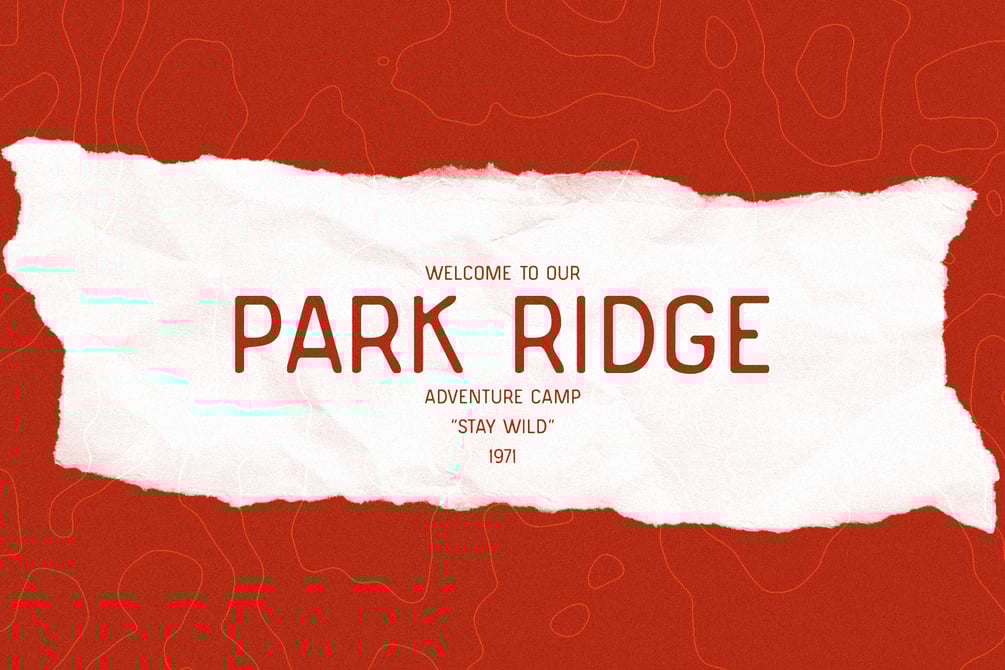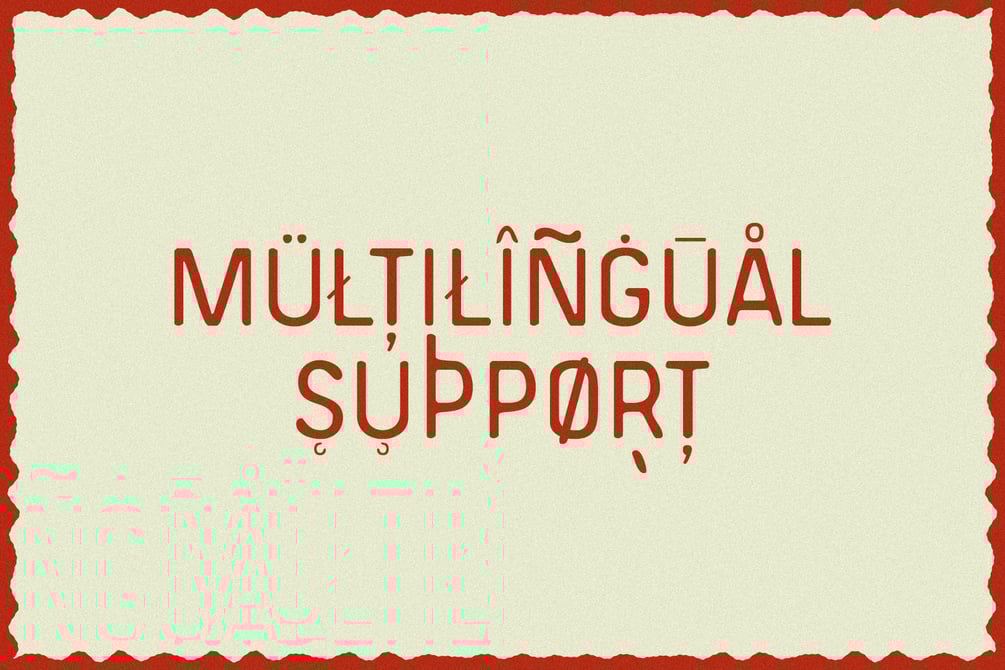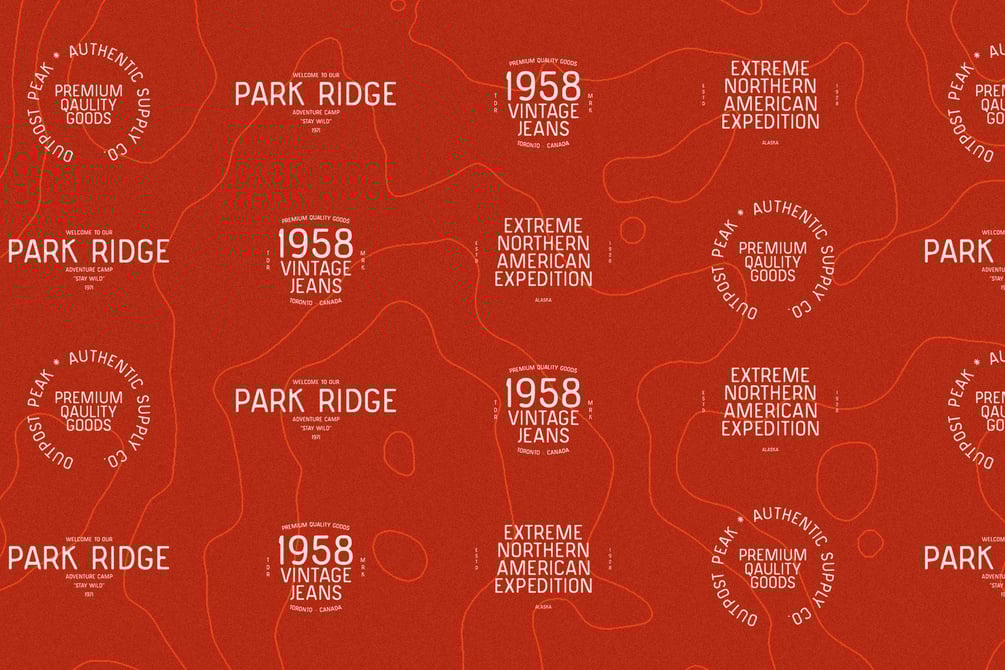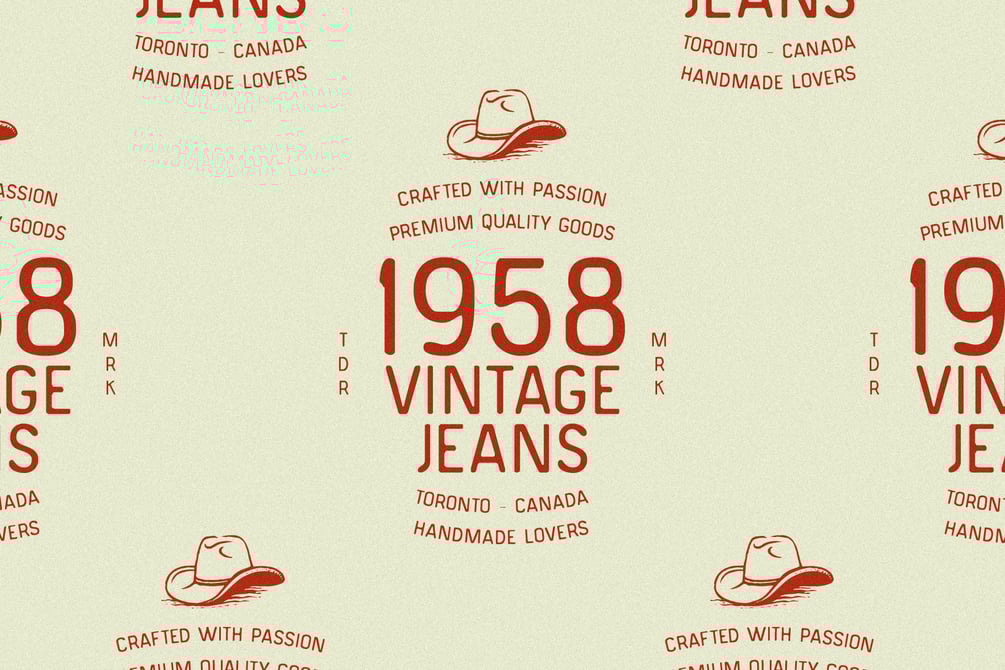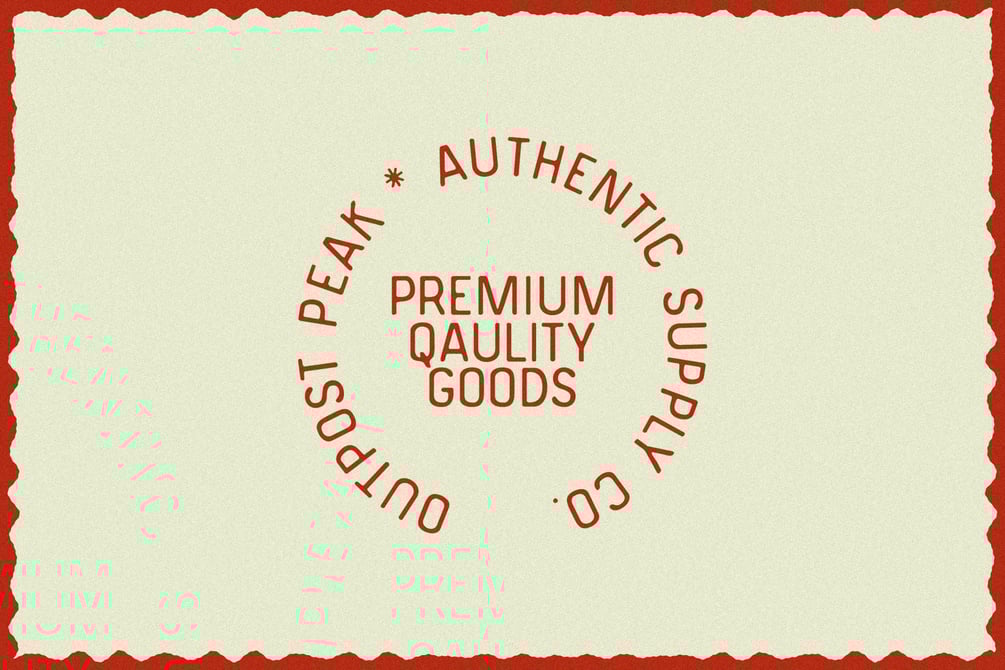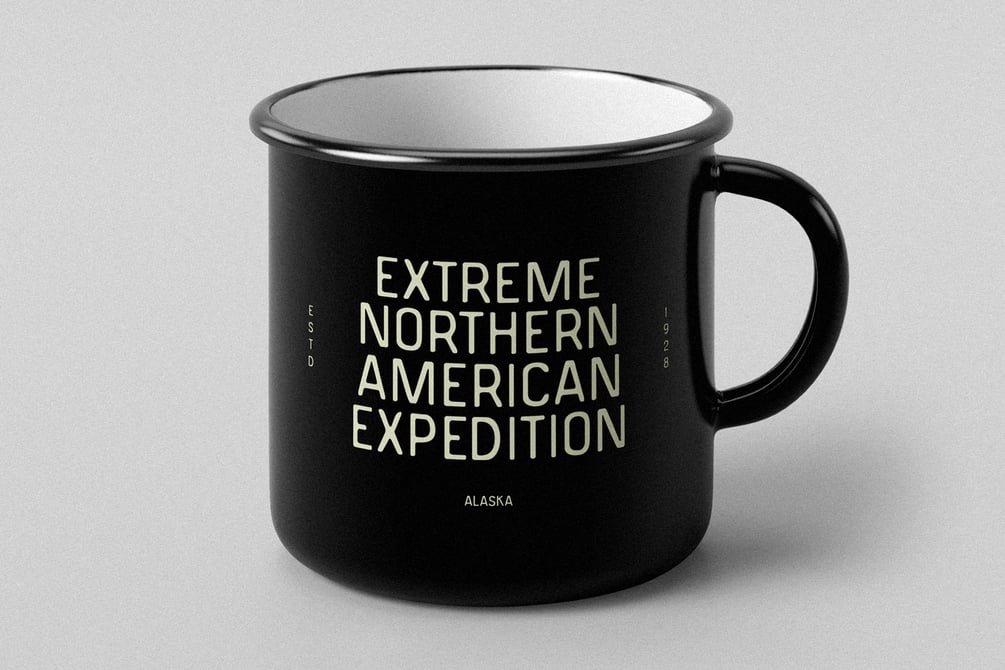
CANYONO FREE FONT
Reptile Foundry
CANYONO is a condensed vintage typeface with a bold Western spirit, inspired by classic frontier signage and rugged desert landscapes. Its tall, narrow letterforms deliver strong impact while saving space, making it ideal for logos, posters, labels, and Western-themed branding that calls for a timeless, adventurous feel.